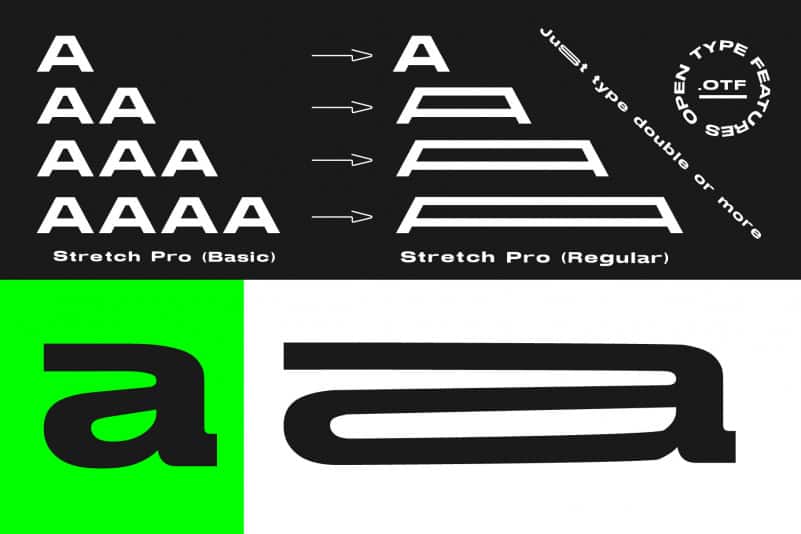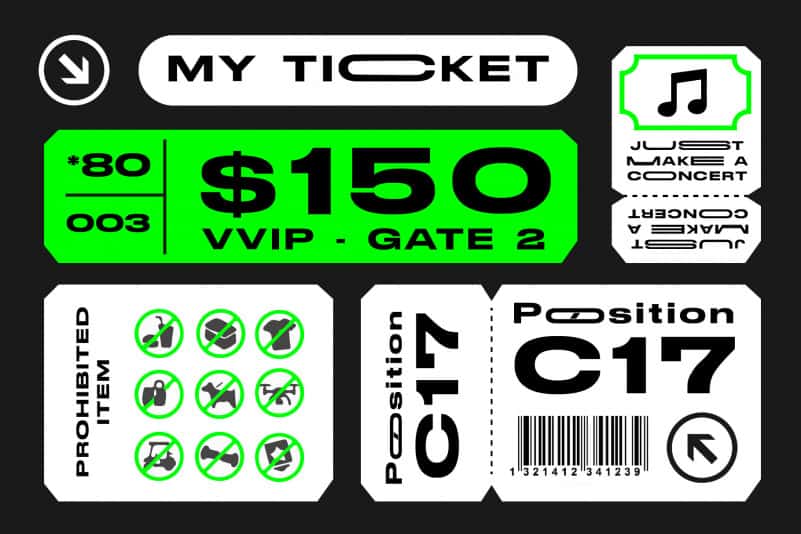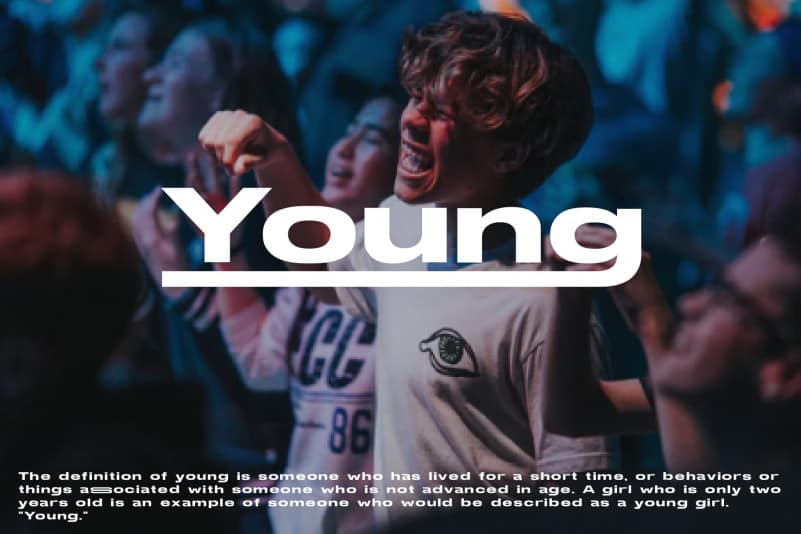
Stretch Pro Futuristic Typeface
Stretch Pro Futuristic Typeface is a basic Helvetica that is turned wide, this is a cool sans serif font with a futuristic and modern theme. With its neat and beautiful arrangement of letters, this typeface will look outstanding in both formal and non-formal designs.
Stretch Pro Futuristic Typeface gives a gorgeous feel to a variety of branding projects, logos, wedding designs, social media posts, advertisements, and so much more. Let your imagination run free!
Instructions : Double type or more to make stretch
• AA → __
• AAA → ___
• AAAA → ____
• Ligature & Unique